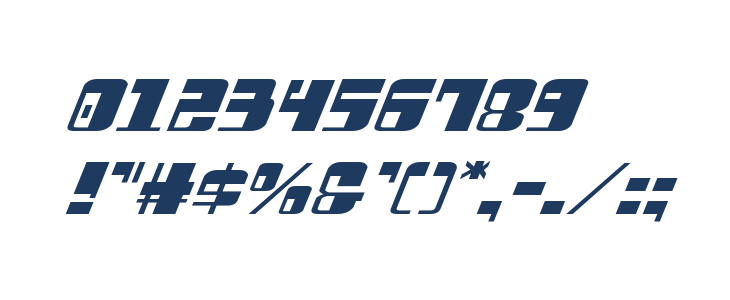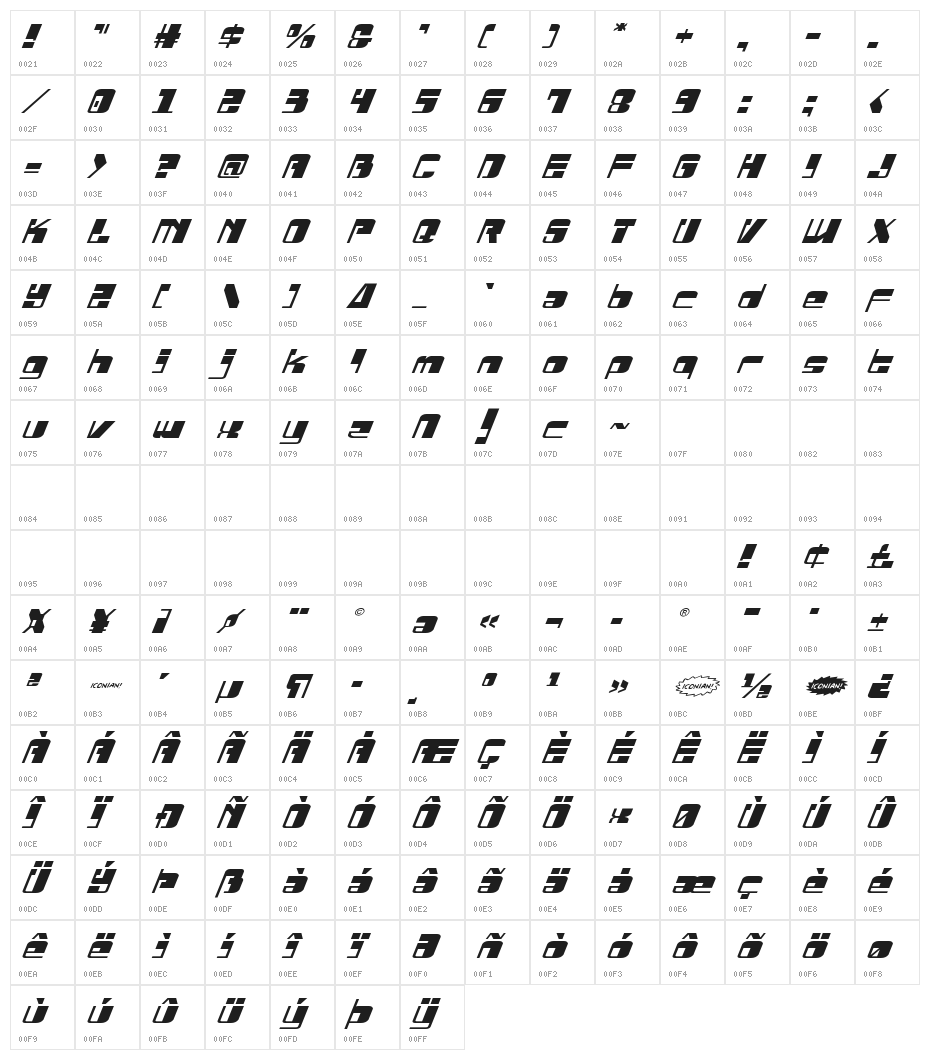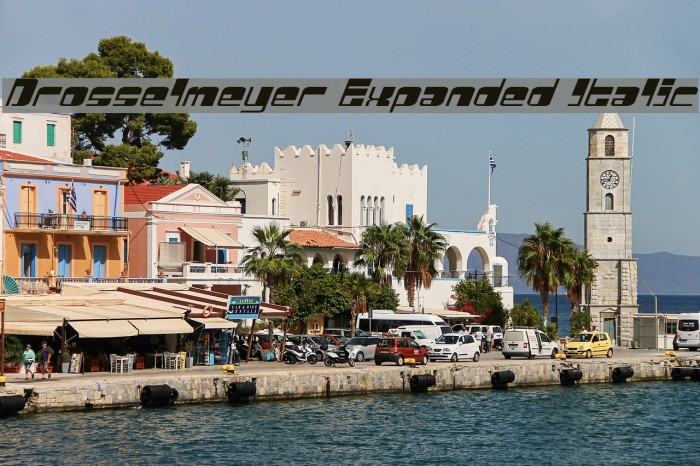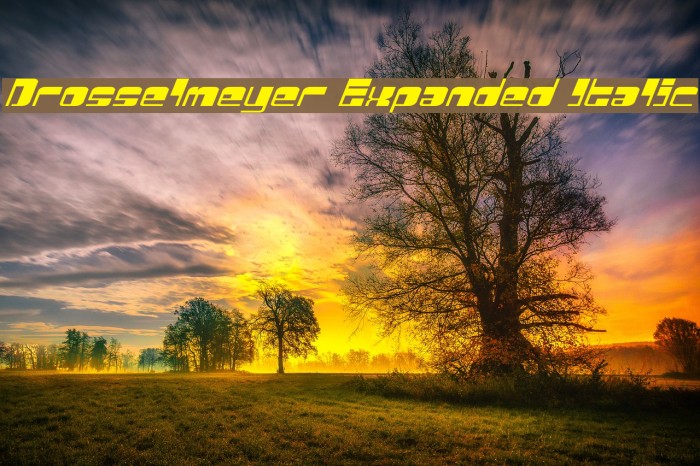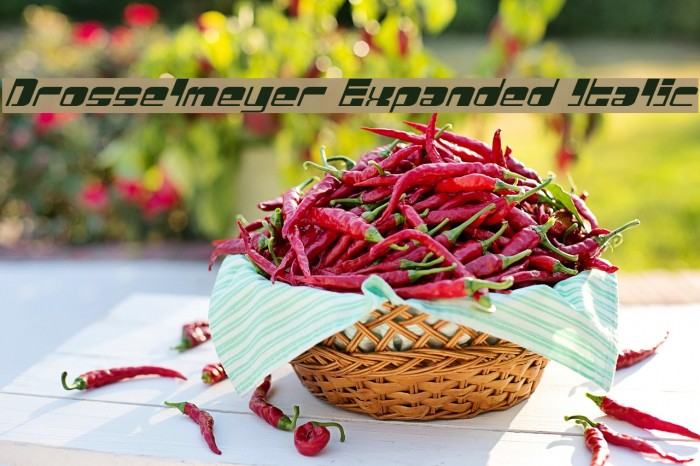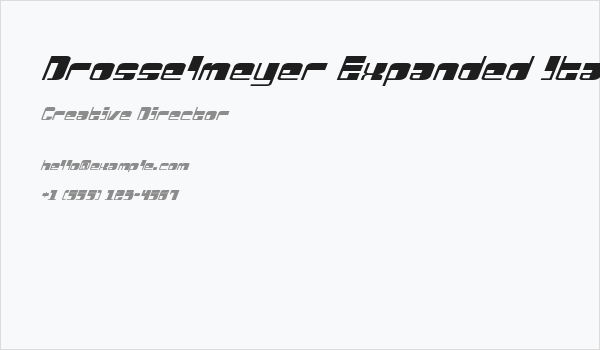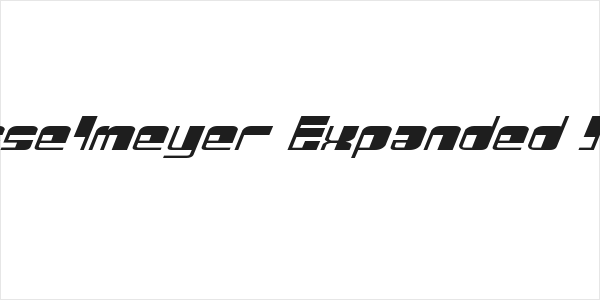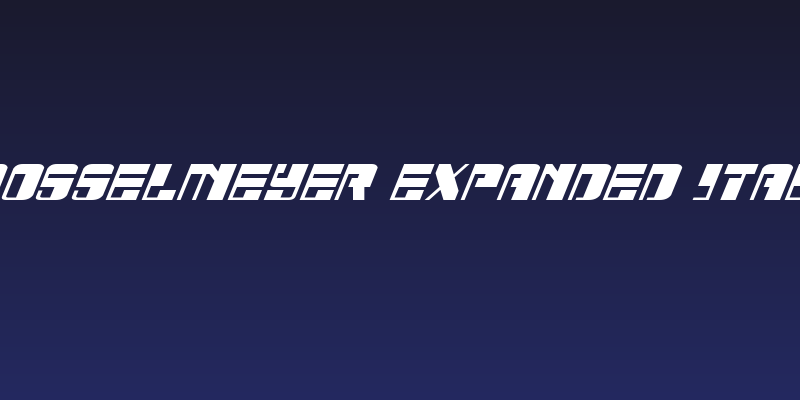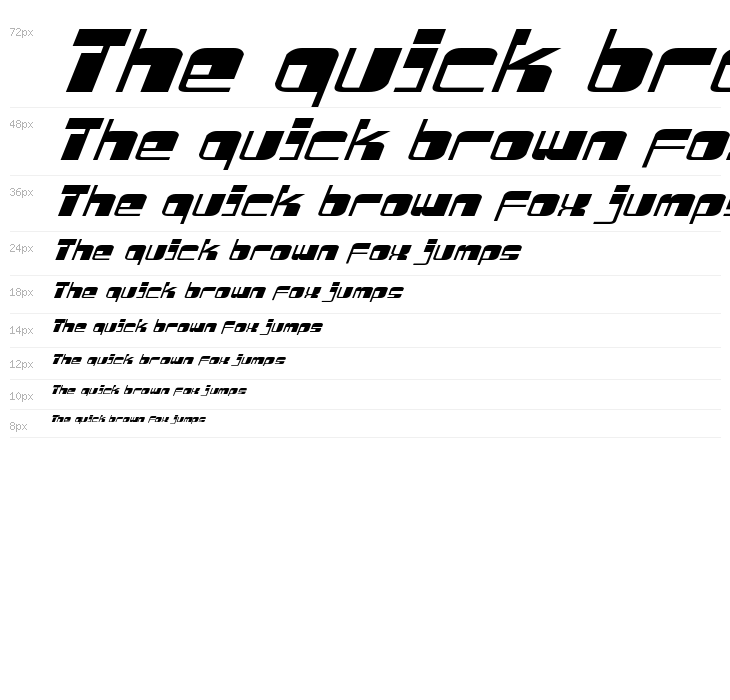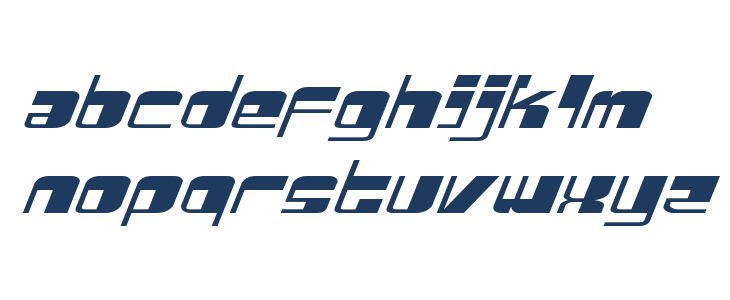
Drosselmeyer Expanded Italic Font
Drosselmeyer Expanded Italic Description
This font features a bold and dynamic design with an italic slant, giving it a sense of motion and energy. The characters are expanded, providing a wide and impactful appearance. The angular and geometric shapes of the letters contribute to a futuristic and modern aesthetic. The uppercase and lowercase letters maintain a consistent style, with sharp edges and clean lines. The numerals and special characters are designed to match the overall theme, ensuring uniformity across all text elements. This font is ideal for projects that require a strong and assertive visual presence.